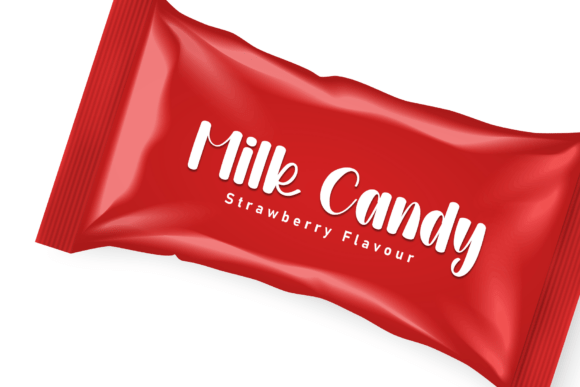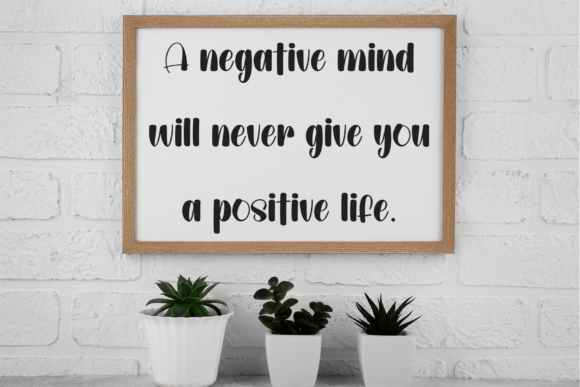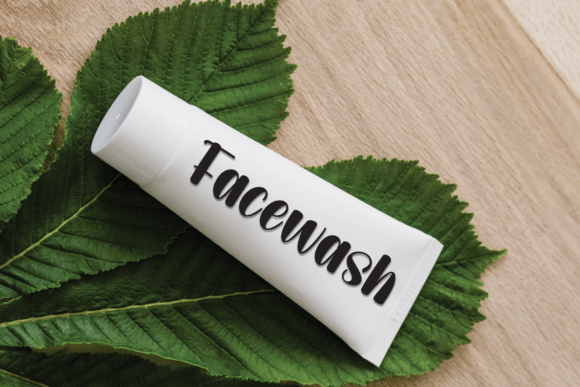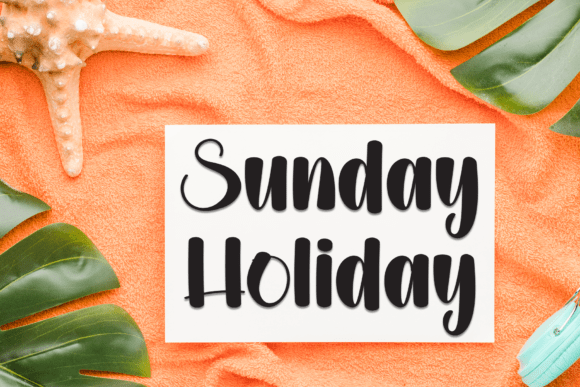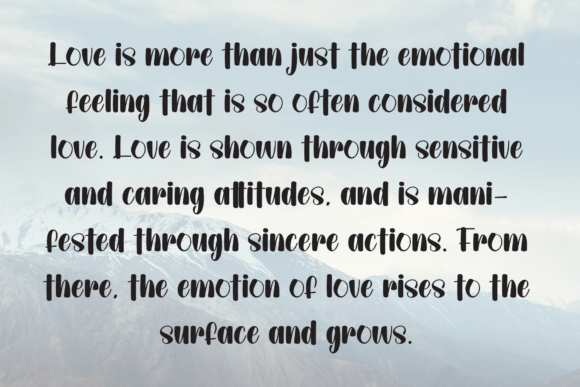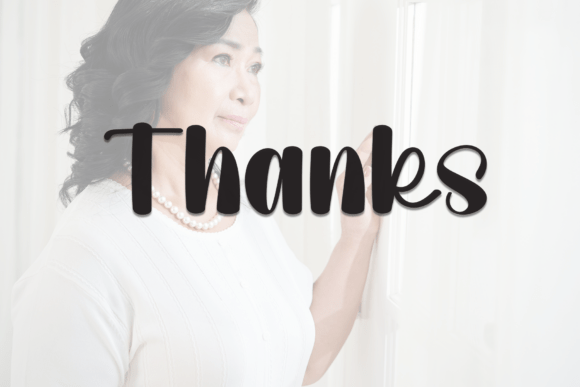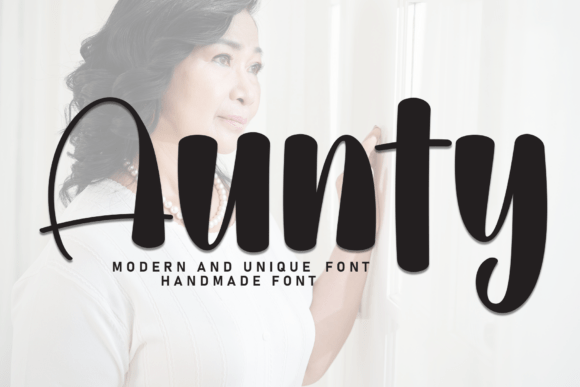
Aunty Font: The Lovely and Timeless Handwritten Font for Your Design Needs
Are you a designer or crafter looking for a font that can add a personal touch to your designs? Look no further than Aunty Font, a lovely and timeless handwritten font that is perfect for creating eye-catching logos, branding, and quotes. With its unique and beautiful touch, Aunty Font is sure to make your design come alive!
What Makes Aunty Font Special?
Aunty Font is a one-of-a-kind handwritten font that stands out from the rest. Every letter has a unique and beautiful touch, which gives your design a personal and human feel. The font is carefully crafted to ensure that each letter is distinct and easy to read, making it perfect for use in a variety of design applications.
Whether you’re looking to create a logo, branding materials, or quotes, Aunty Font is the perfect choice. The font is versatile and can be used in a range of design projects, from digital designs to print materials. Its timeless and classic look ensures that your design will never go out of style.
Key Features of Aunty Font
So, what makes Aunty Font so special? Here are some of its key features:
- Unique and Beautiful Touch: Every letter in Aunty Font has a unique and beautiful touch that gives your design a personal feel.
- Timeless and Classic Look: Aunty Font has a timeless and classic look that ensures your design will never go out of style.
- Versatile: Aunty Font can be used in a range of design projects, from digital designs to print materials.
- Easy to Read: The font is carefully crafted to ensure that each letter is easy to read, making it perfect for use in a variety of design applications.
Why Designers and Crafters Love Aunty Font
Designers and crafters love Aunty Font for a range of reasons. Here are some of the benefits of using Aunty Font in your design projects:
- Personal Touch: Aunty Font adds a personal touch to your design, making it stand out from the rest.
- Easy to Use: Aunty Font is easy to use and can be incorporated into a range of design projects.
- Timeless Look: Aunty Font has a timeless look that ensures your design will never go out of style.
- Unique and Beautiful: Every letter in Aunty Font is unique and beautiful, making your design truly special.
In conclusion, Aunty Font is a lovely and timeless handwritten font that is perfect for designers and crafters looking to add a personal touch to their designs. With its unique and beautiful touch, Aunty Font is sure to make your design come alive! Whether you’re looking to create a logo, branding materials, or quotes, Aunty Font is the perfect choice. So why wait? Download Aunty Font today and start creating stunning designs that will leave a lasting impression!